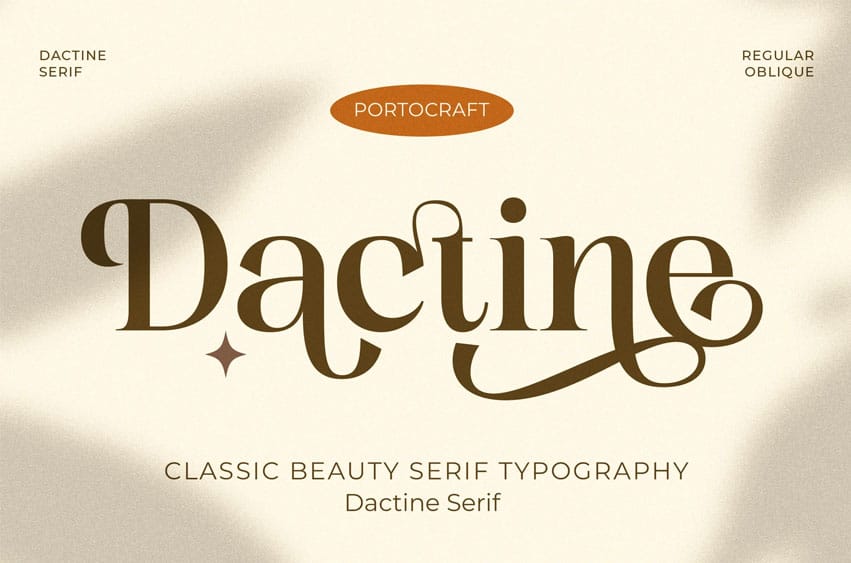
Dactine Font is a classic and elegant serif typeface designed to deliver timeless beauty with a modern touch. Featuring refined letterforms, smooth curves, and graceful serif details, this font brings sophistication and charm to any design project.
With its balanced proportions and stylish character, Dactine Serif is perfect for high-end branding, editorial layouts, fashion designs, luxury packaging, logos, and elegant headlines. The typeface includes a regular and oblique style, offering flexibility for creating dynamic and expressive typography.
Dactine Serif combines classic serif tradition with contemporary elegance, making it a versatile choice for both print and digital applications.
- Classic and elegant serif style
- Smooth curves with refined details
- Regular & oblique style
- Professional and timeless look